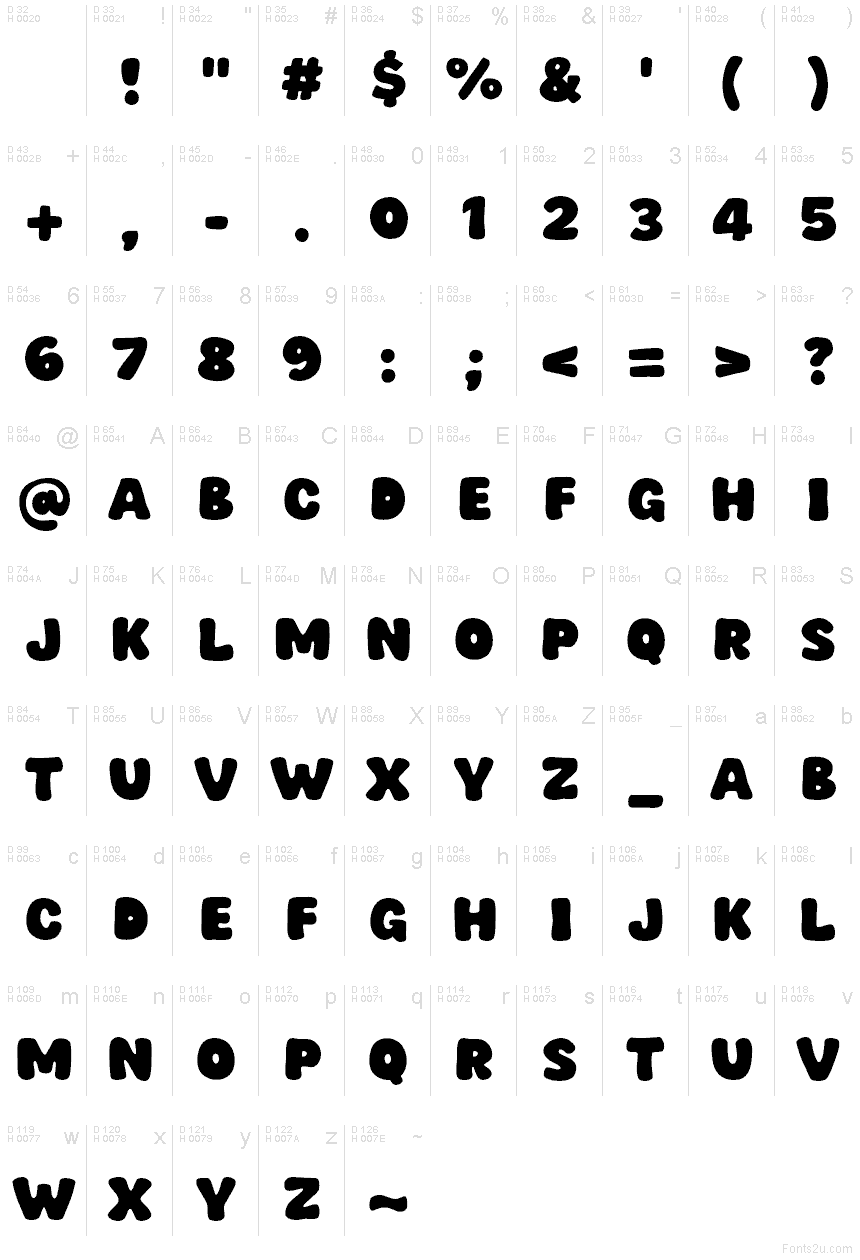
Most Sky
Most Sky font by MJType is a display cartoon typeface that captures attention with its fluid structure and unmistakable 70’s retro aesthetic. It has unconventional shapes characterized by rounded forms, making its bold style appear fun, joyful, and extremely playful. All in all, it issues a stress-free youthful vibe with the perfect style for those who want to reminisce or imitate the good old days.
The free font allows for a variety of creative ways to utilize it; starting from titles and heading designs; to posters and visual identity projects. Other applications are greeting card design, social media branded posts, animations taglines and typography sequences logos.